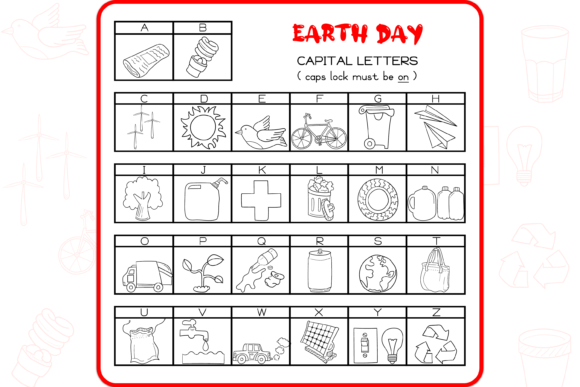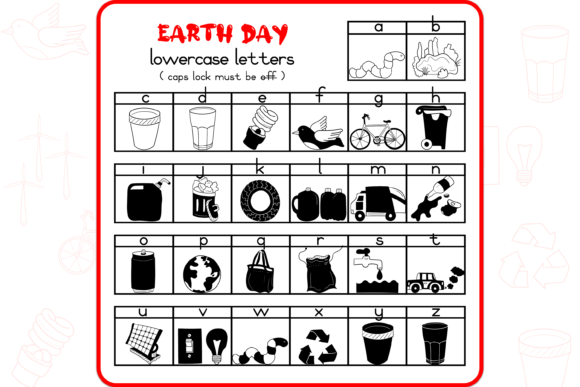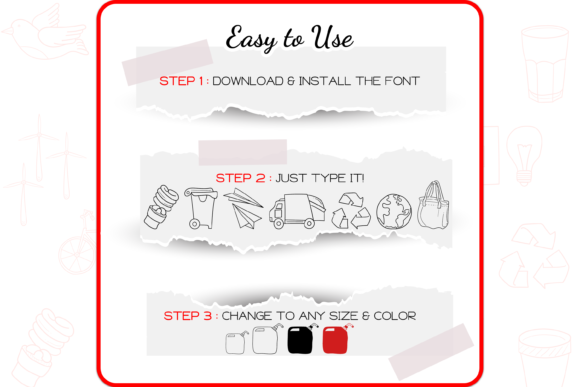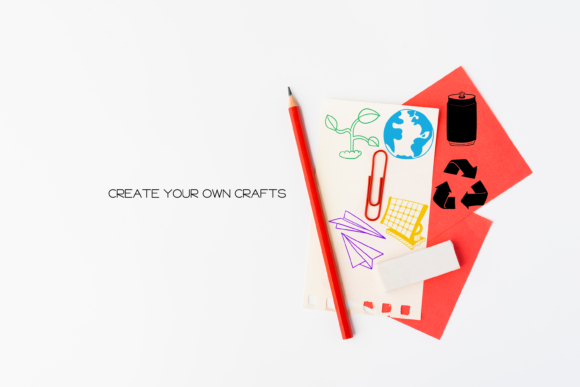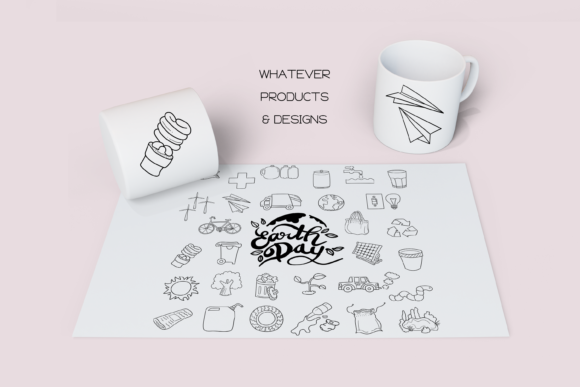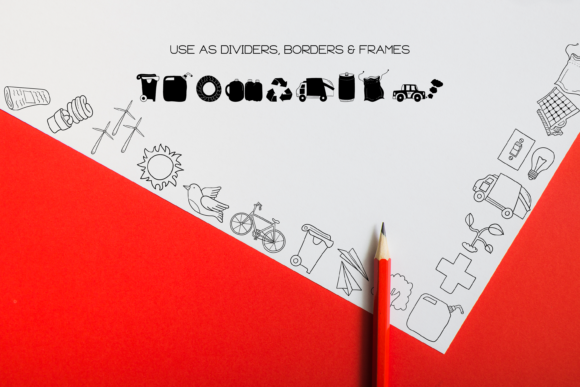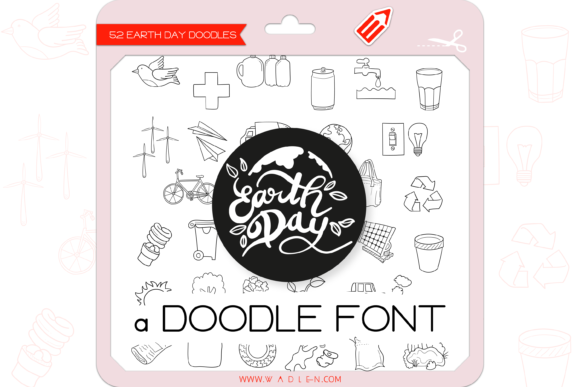
Introducing Earth Day Font: A Unique and Cute Dingbats Font to Elevate Your Creative Projects
As we celebrate Earth Day, we’re excited to introduce a special font that’s perfect for designers, crafters, and eco-warriors alike. Say hello to Earth Day Font, a charming dingbats font that features 52 hand-drawn doodles to add a touch of whimsy and personality to your creative projects.
What is Earth Day Font?
Earth Day Font is a one-of-a-kind dingbats font that’s specifically designed to bring a smile to your face and a touch of eco-friendliness to your designs. With 52 unique and adorable doodles, this font is perfect for a wide range of creative projects, from Earth Day-themed crafts to everyday designs that need a dash of personality.
Features of Earth Day Font
- 52 Hand-Drawn Doodles: Each doodle is carefully crafted to bring a touch of whimsy and fun to your designs.
- Unique and Cute Designs: From eco-friendly symbols to adorable animals, every doodle is designed to make your designs stand out.
- Dingbats Font: Earth Day Font is a dingbats font, making it easy to use and incorporate into your designs.
- Perfect for Earth Day and Beyond: While Earth Day Font is perfect for Earth Day-themed projects, it’s also versatile enough to use in a wide range of designs throughout the year.
Why Use Earth Day Font?
So, why should you use Earth Day Font in your creative projects? Here are just a few reasons:
- Add a Touch of Whimsy: Earth Day Font is the perfect way to add a dash of personality and whimsy to your designs.
- Stand Out from the Crowd: With its unique and adorable doodles, Earth Day Font is sure to make your designs stand out from the crowd.
- Perfect for Eco-Friendly Themes: Whether you’re working on an Earth Day project or an eco-friendly theme, Earth Day Font is the perfect choice.
- Easily Customizable: As a dingbats font, Earth Day Font is easy to customize and use in a wide range of designs.
Ideas for Using Earth Day Font
So, how can you use Earth Day Font in your creative projects? Here are a few ideas to get you started:
- Earth Day Cards and Posters: Use Earth Day Font to create adorable cards and posters for Earth Day.
- Eco-Friendly Packaging: Add a touch of personality to your eco-friendly packaging with Earth Day Font.
- Social Media Graphics: Use Earth Day Font to create eye-catching social media graphics that showcase your eco-friendly brand.
- Crafts and DIY Projects: Earth Day Font is perfect for crafters and DIY enthusiasts who want to add a touch of personality to their projects.